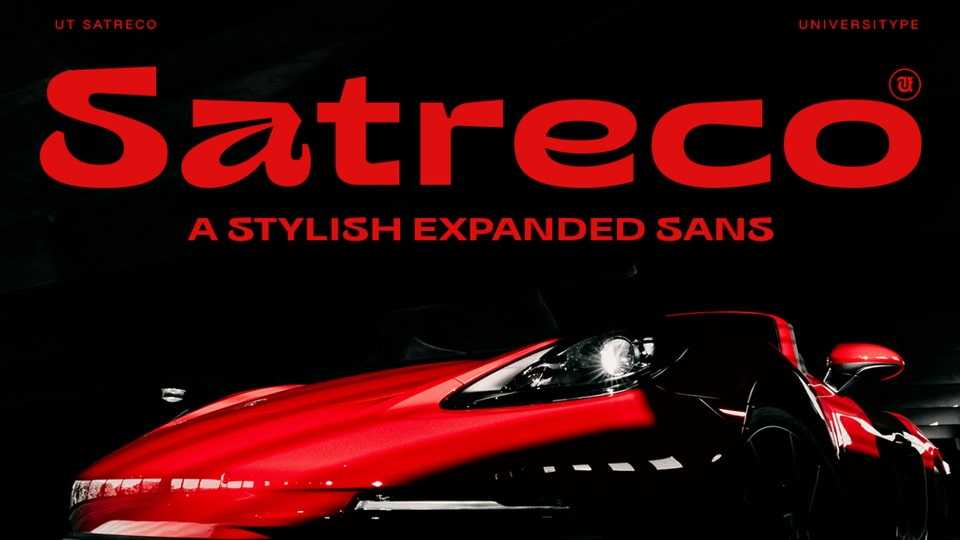
Download UT Satreco font, more than just a font—it’s a statement piece. Bold, wide, and unapologetically modern, this expanded sans brings a powerful presence to any design.
Designer: Universitype Foundry